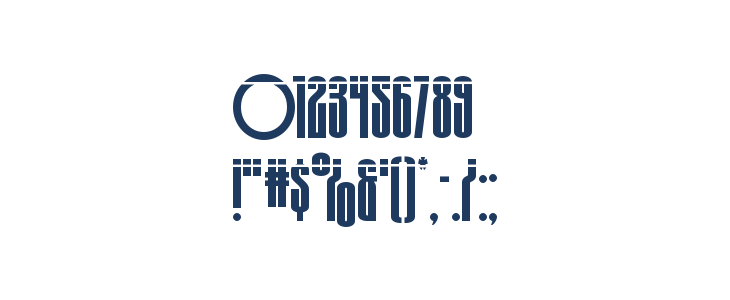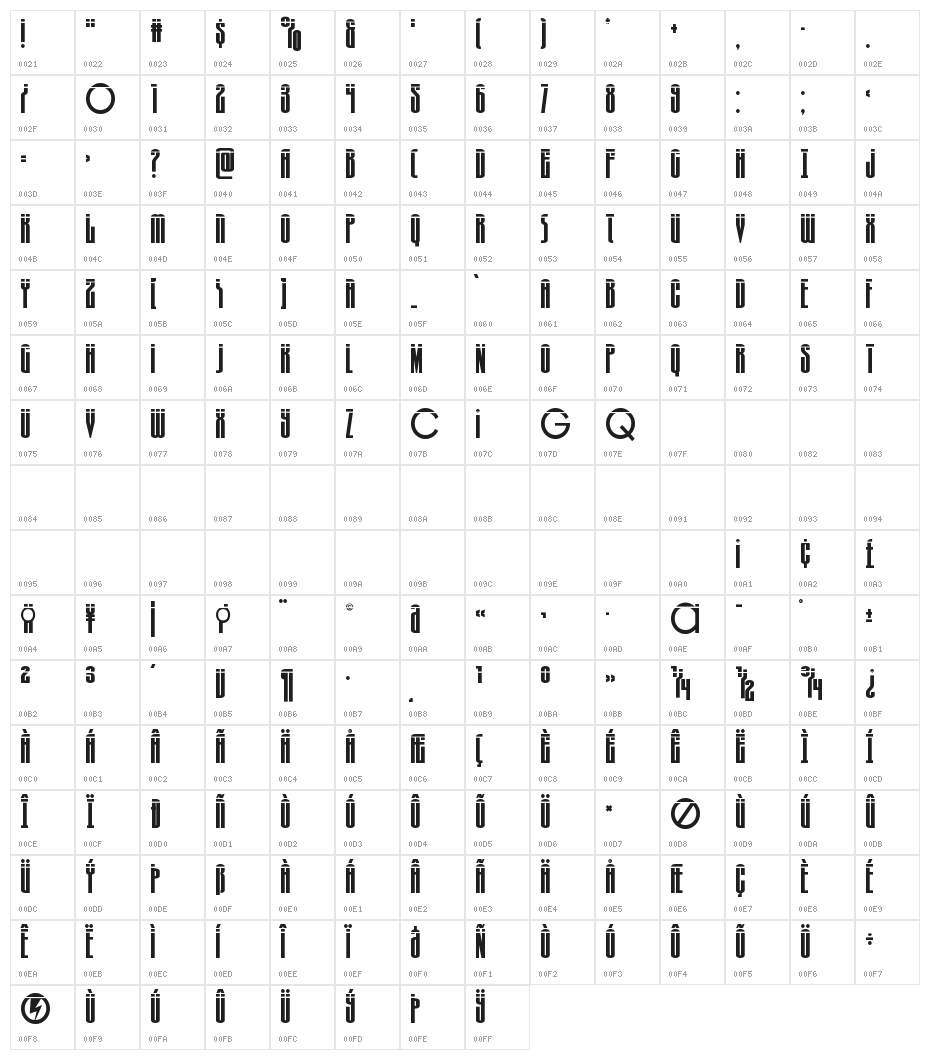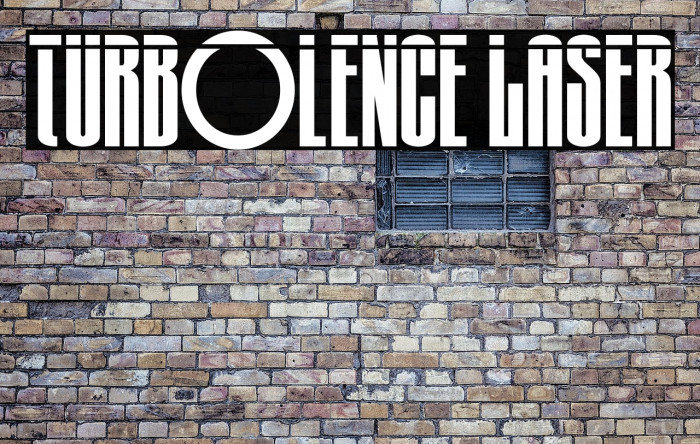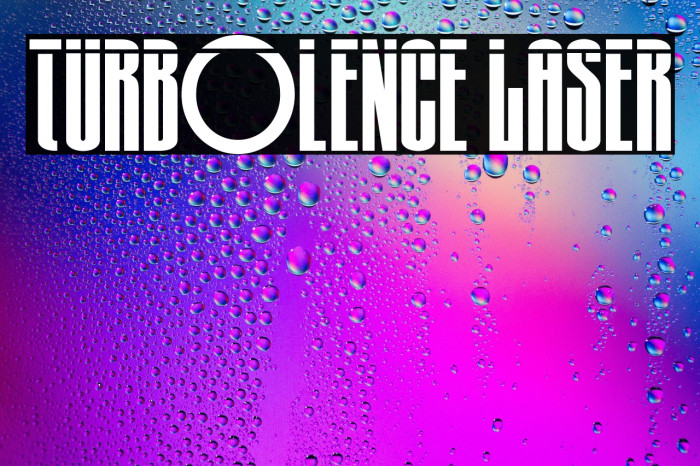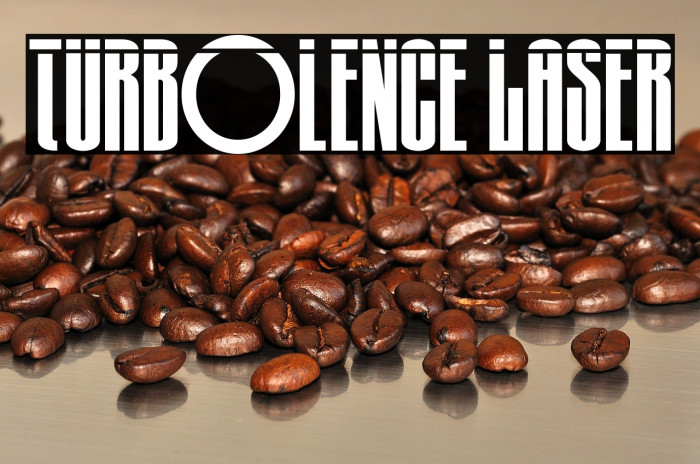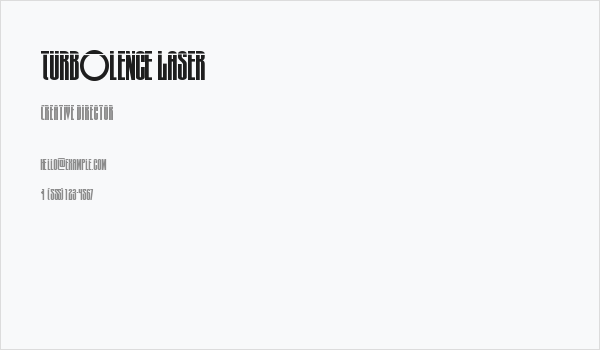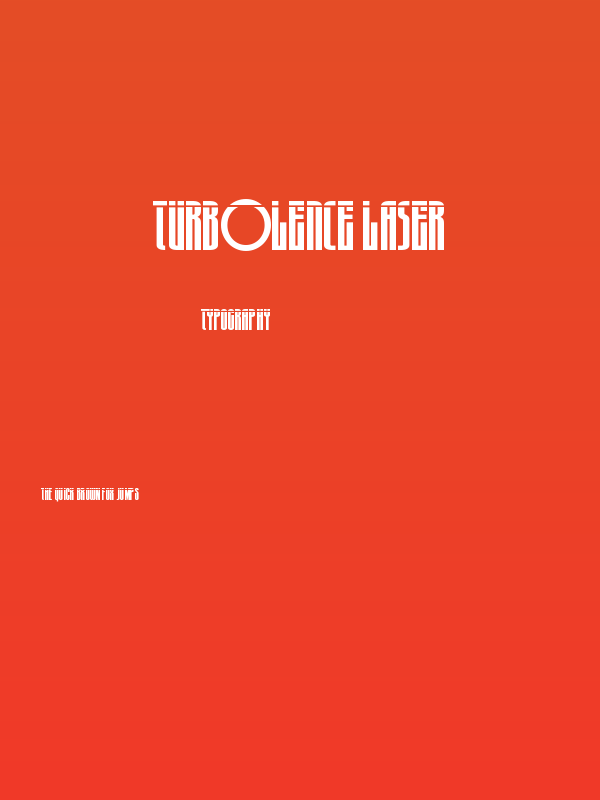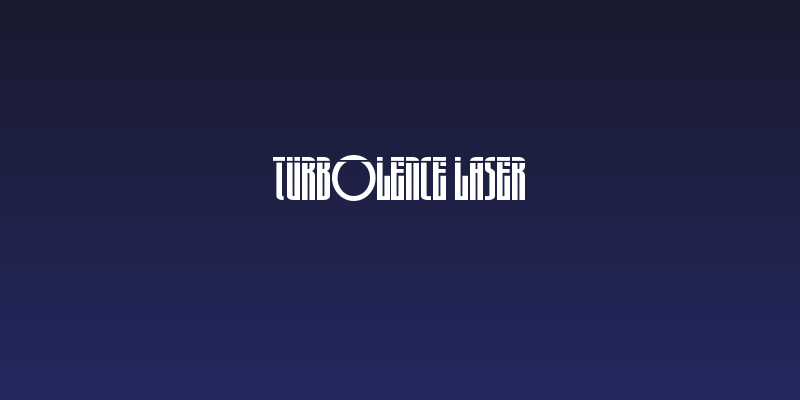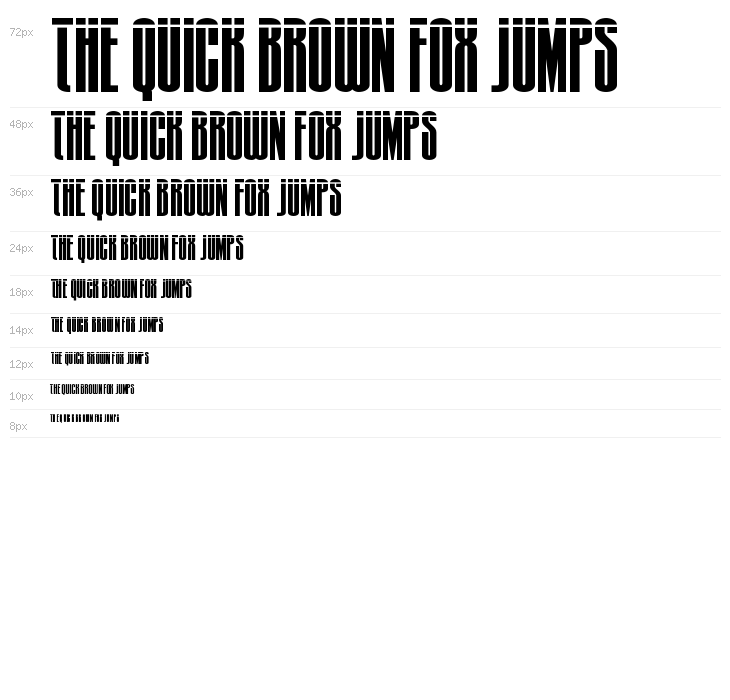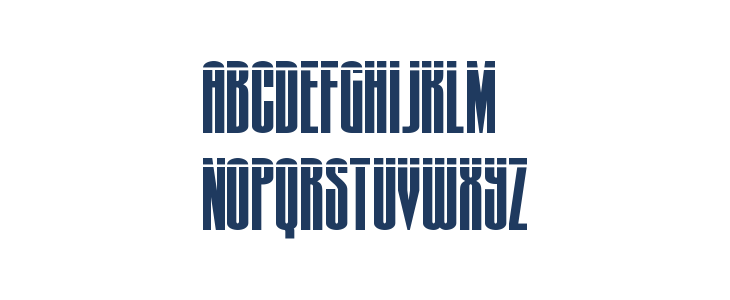
Turb0lence Laser Font
Turb0lence Laser Description
This font features a bold, futuristic design with a strong geometric influence. The characters are tall and narrow, with a distinct vertical emphasis, creating a striking and modern appearance. The uppercase letters are particularly elongated, giving the font a unique and dynamic look. The numbers and special characters maintain this style, ensuring consistency across all glyphs. The font's design is reminiscent of digital or sci-fi themes, making it suitable for projects that require a modern and edgy aesthetic. Its high contrast and bold weight make it stand out, while the condensed width allows for efficient use of space.
| Proposed Projects | Ideal for tech-themed posters, video game titles, futuristic branding, and digital media. |